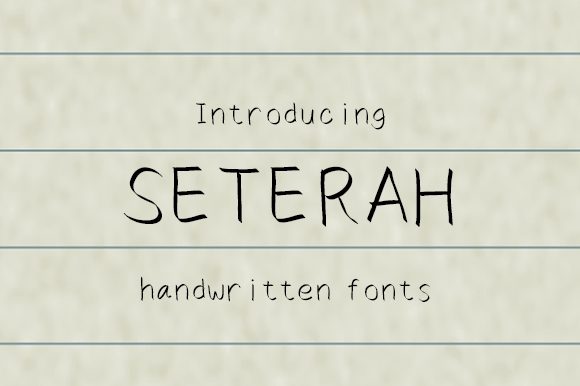
Introducing Seterah Font, the Enchanting Script that Will Elevate Your Designs!
Embark on a visual journey with Seterah Font, a captivating script that exudes elegance and charm. This enchanting font, crafted by the skilled hands of Rizky Creative, is a true masterpiece, designed to transform your creative endeavors into stunning works of art.
With its timeless and relaxed style, Seterah Font whispers a tale of sophistication and effortless beauty. Its flowing strokes and graceful curves evoke a sense of tranquility, inviting you to pen heartfelt messages, design alluring invitations, and create bespoke branding that stands out from the crowd.
Whether you're a passionate Instagrammer seeking to captivate your audience or an artist at heart longing to add a touch of magic to your DIY projects, Seterah Font is your perfect companion. It effortlessly blends the allure of handwritten letters with the precision of digital typography, ensuring that your creations radiate authenticity and finesse.
Imagine the allure of a heartfelt love letter penned in Seterah Font's delicate embrace, carrying your emotions with grace and elegance. Envision the enchantment of a wedding invitation adorned with Seterah's timeless charm, setting the tone for a day filled with joy and romance. Picture the sophistication of a brand logo emblazoned with Seterah's refined strokes, commanding attention and leaving an unforgettable impression.
Indulge in the limitless possibilities that await with Seterah Font. Allow its enchanting allure to ignite your creativity, transform your designs into captivating masterpieces, and leave a lasting impression on all who behold your creations.